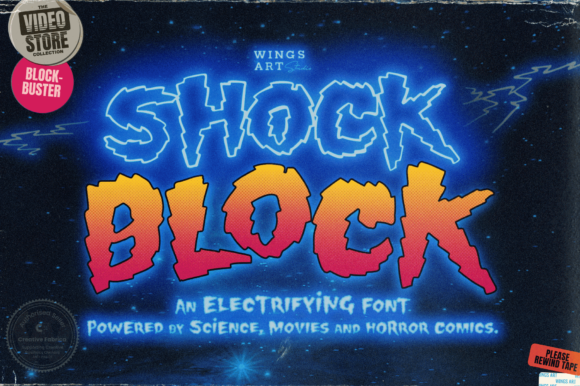
Introducing Shock Block Font, the ultimate font for movie posters that will electrify your designs and captivate your audience. Created by wingsart, this display and dingbats duo font is a masterpiece inspired by the golden era of 80s movies, horror comics, and Saturday morning cartoons.
Prepare to be amazed as Shock Block takes you on a thrilling journey back in time. Its hand-drawn design, meticulously crafted in pen and ink, perfectly replicates the iconic style of classic horror comics. This font is a true homage to the spine-chilling atmospheres and hair-raising plot twists that made those movies so unforgettable.
But Shock Block isn't just a nostalgic trip down memory lane. It's a font powered by experimental science and an astonishing 1.21 gigawatts of electricity! Brace yourself for an electrifying experience that will leave you breathless. Just remember to wear your safety goggles because this font packs a punch!
With its all-caps design and unique upper and lowercase characters, Shock Block offers endless possibilities for your creative projects. From movie titles that demand attention to school projects that need an extra spark, this font is your secret weapon. Its versatility knows no bounds.
But that's not all. Shock Block also includes a contrasting 'Block' style, allowing you to create dynamic and visually stunning compositions. And as if that wasn't enough, it comes with a selection of lightning bolt symbols and underlines to add that extra touch of excitement to your designs.
Imagine the impact this font will have on your movie posters, presentations, comic books, or any project that needs to stand out from the crowd. It will transport your audience to a world of suspense, mystery, and adventure. Get ready to make a lasting impression with Shock Block Font.